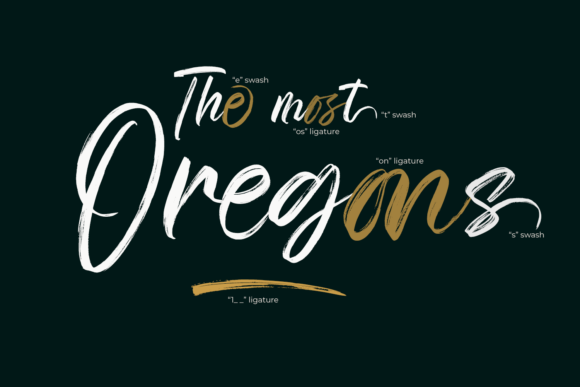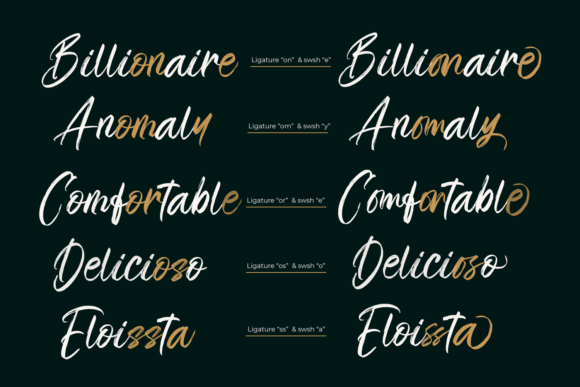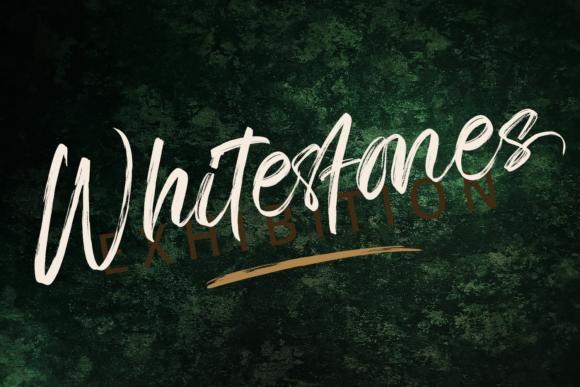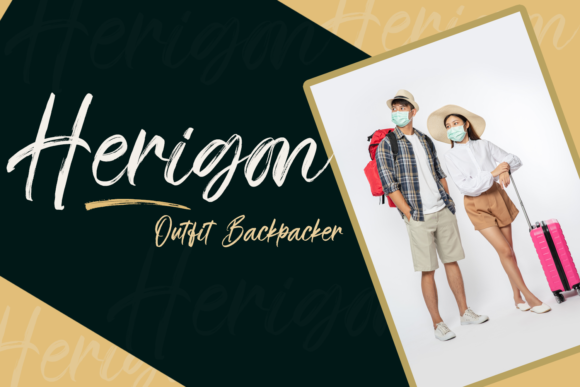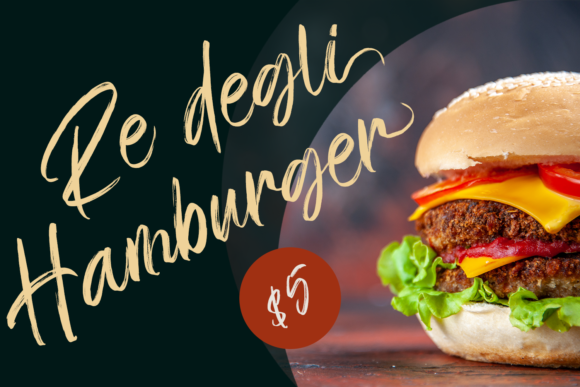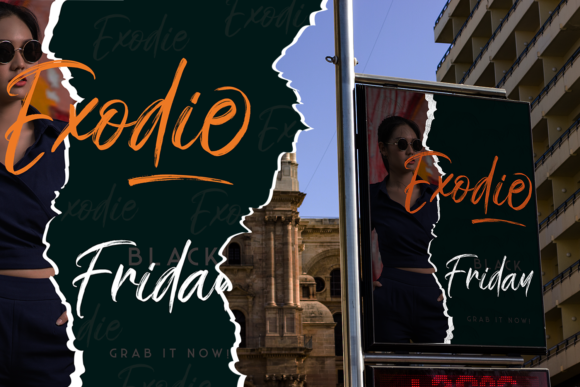
Introduction to Real Dreams Font
Have you ever found yourself lost in a creative moment, pouring over design resources in search of the perfect font to bring your vision to life? That’s exactly where I was when I stumbled upon the enchanting Real Dreams Font. Its gentle, brushed handwritten style had me hooked from the start, and I couldn’t wait to explore its possibilities.
As a designer, you know how crucial it is to have a reliable design resource that can elevate your creative project to the next level. And that’s exactly what Real Dreams Font delivers – a high-quality, versatile font that’s perfect for adding a touch of joy and romance to your designs.
Key Features of Real Dreams Font
- High-quality design resource ideal for creative projects, with a unique and dreamy aesthetic.
- Unique characteristics include swashes, flourishes, and decorative elements that add a touch of elegance and sophistication to any creative project.
Honest Review: Real Dreams Font
I recently had the chance to try out the Real Dreams Font for a creative project, and I must say it was a great experience. The font is a free download, which is always a bonus when working on a tight budget. The high quality of the font was immediately apparent, and it added a nice touch to my design.
What works well with the Real Dreams Font is its versatility. It can be used for a variety of projects, from logos to signage, and it looks great in both digital and print formats. The font also has a transparent background, which makes it easy to use with any design element.
- ✨ High-quality font with a unique and modern design
- ✨ Versatile and can be used for a variety of projects
However, I did notice a few limitations with the Real Dreams Font. The font only comes in a few weights, which can make it difficult to achieve the exact look you want. Additionally, the font may not be suitable for projects that require a lot of text.
Overall, I was impressed with the Real Dreams Font and would recommend it to designers looking for a high-quality, free font. While it may have a few limitations, it’s a great resource to have in your design arsenal.
The Real Dreams Font is ideal for use in branding, marketing materials, and social media graphics. Its high-quality design and transparent background make it a versatile choice for a wide range of creative projects.